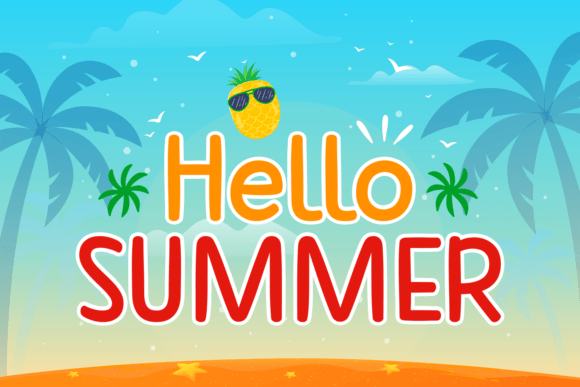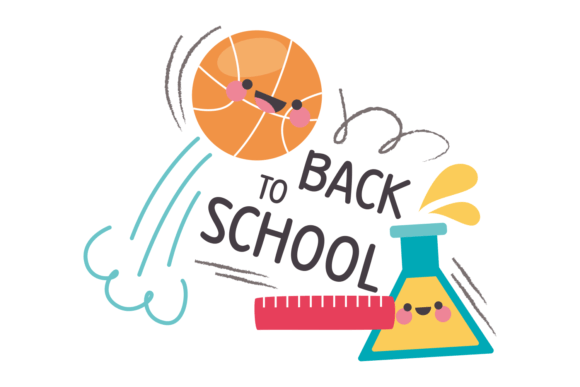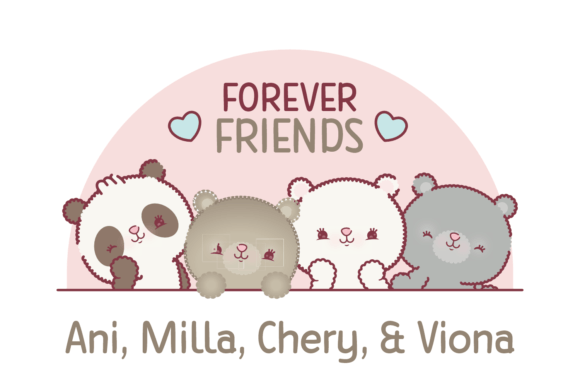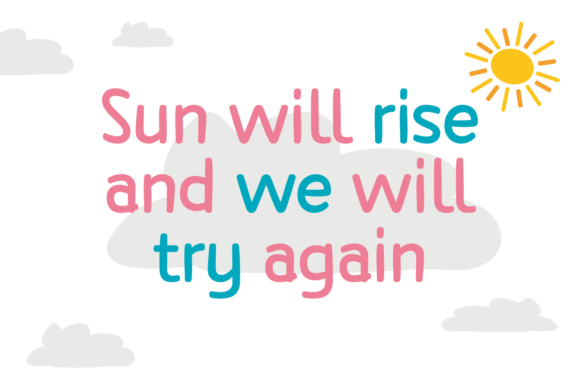
The Joy of After Break Font: A Playful Companion for Creative Projects
I still remember the frustration of working on a DIY project, hours spent crafting the perfect design, only to realize that the font I’d chosen was completely wrong. The text looked stiff, uninviting, and utterly lacking in personality. It was as if the words were trying to escape the page, but in all the wrong ways. That’s when I stumbled upon After Break, a playful handwritten font that instantly lifted my creative spirits. If you’re a designer, crafter, or hobbyist looking for a fun and versatile font, you’re in the right place!
An Honest Review of After Break Font
What I Love About After Break ✨
- ✅ Playful and Whimsical: After Break is the perfect blend of fun and friendliness. Its handwritten charm makes it ideal for projects that need a personal touch.
- ✅ Highly Versatile: Whether you’re working on stickers, t-shirt designs, kid’s clothes, or branding materials, After Break adapts beautifully to various contexts.
- ✅ Easy to Read: Despite its playful nature, the font remains clear and legible, even at smaller sizes.
- ✅ OpenType Features: After Break comes with a range of OpenType features, including stylistic alternates and glyphs, which allow for plenty of creative experimentation.
While After Break is an excellent font, it’s not without its quirks. For instance:
- ⚠️ Limited Formality: Given its playful nature, After Break might not be the best choice for projects requiring a formal or corporate tone.
- ⚠️ Occasional Kerning Issues: As with many handwritten fonts, you might encounter some kerning issues, particularly with certain letter combinations.
The Backstory Behind After Break Font
Imagine a world where creativity knows no bounds, and fonts are the playground for imagination. The designer behind After Break was inspired by the simple joys of childhood: laughter, play, and the freedom to create. With a background in graphic design and a passion for typography, they set out to craft a font that embodies the carefree spirit of youth. The result is After Break, a font that’s equal parts whimsical and versatile.
Q: Is After Break suitable for professional branding?
A: While After Break is playful, it can work for professional branding if your brand’s personality aligns with fun and approachability. It’s perfect for creative businesses, kids’ products, or any brand looking to convey a friendly vibe.
Q: Does After Break support OpenType features?
A: Yes, After Break comes with OpenType features, including stylistic alternates and glyphs. These features allow for greater flexibility and creativity in your designs.